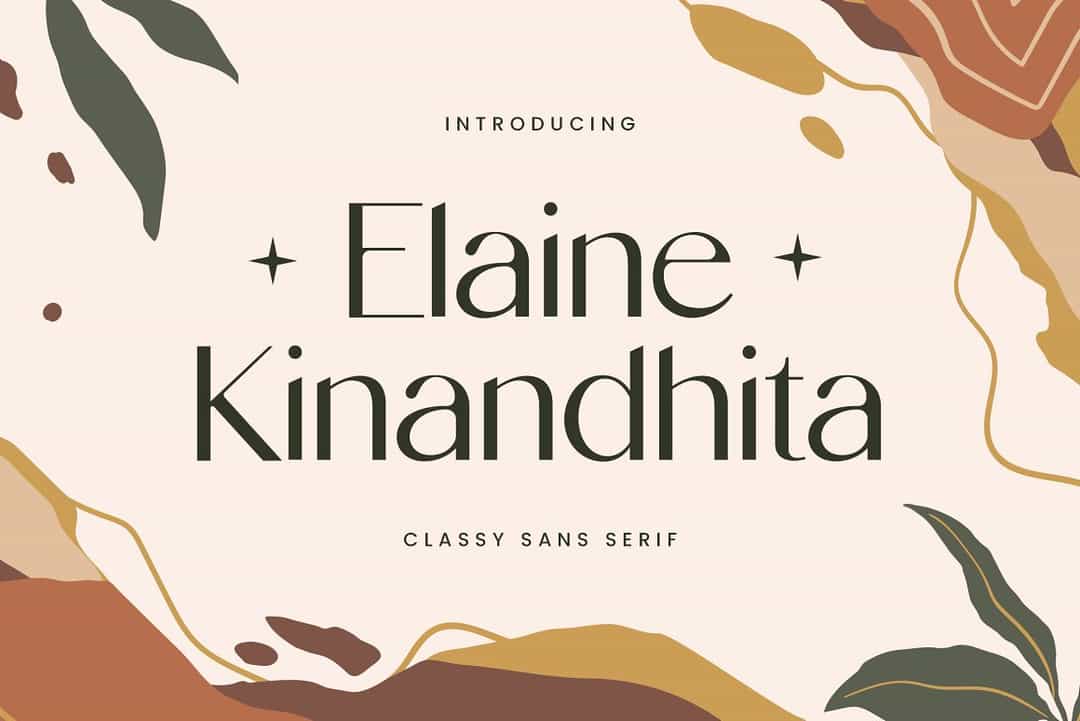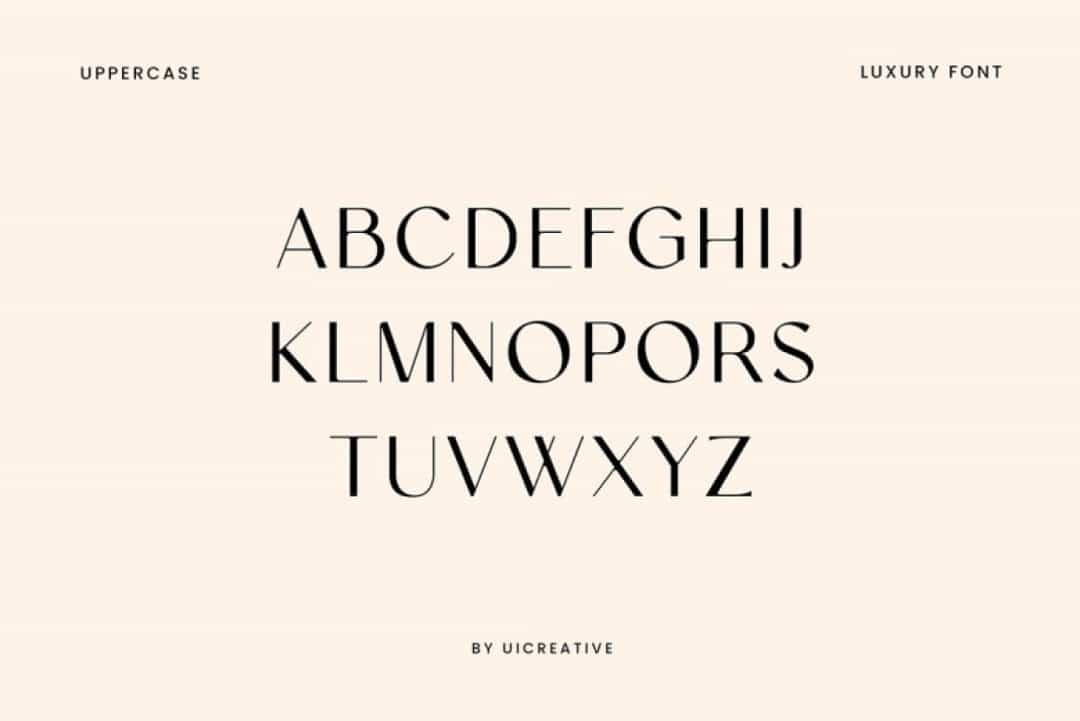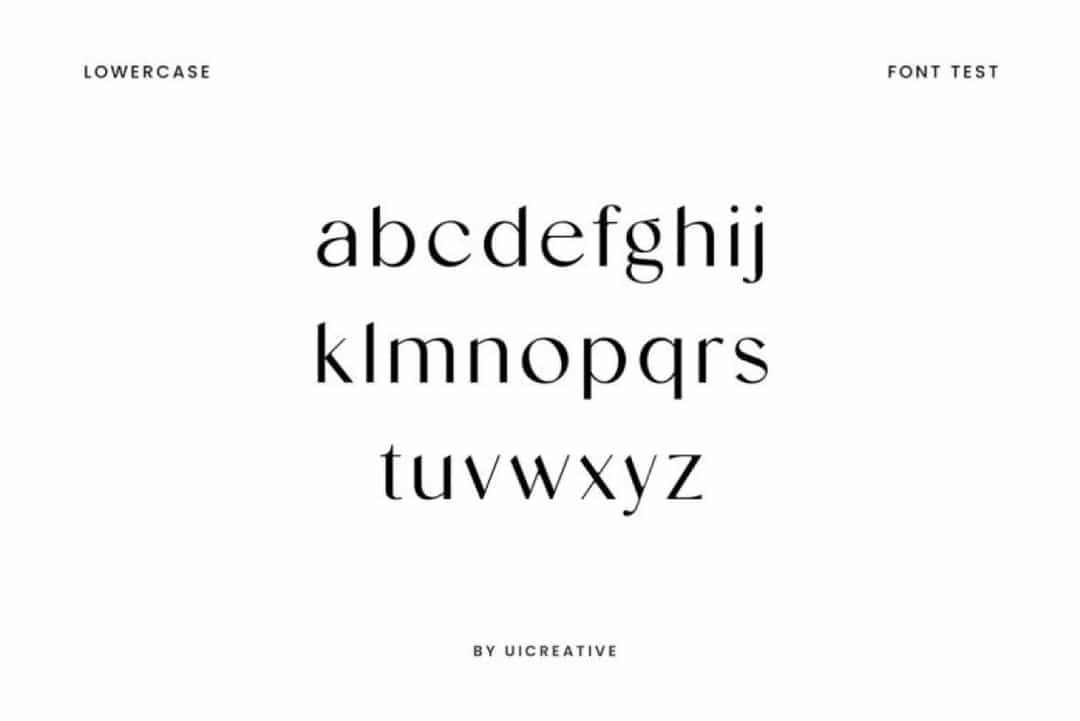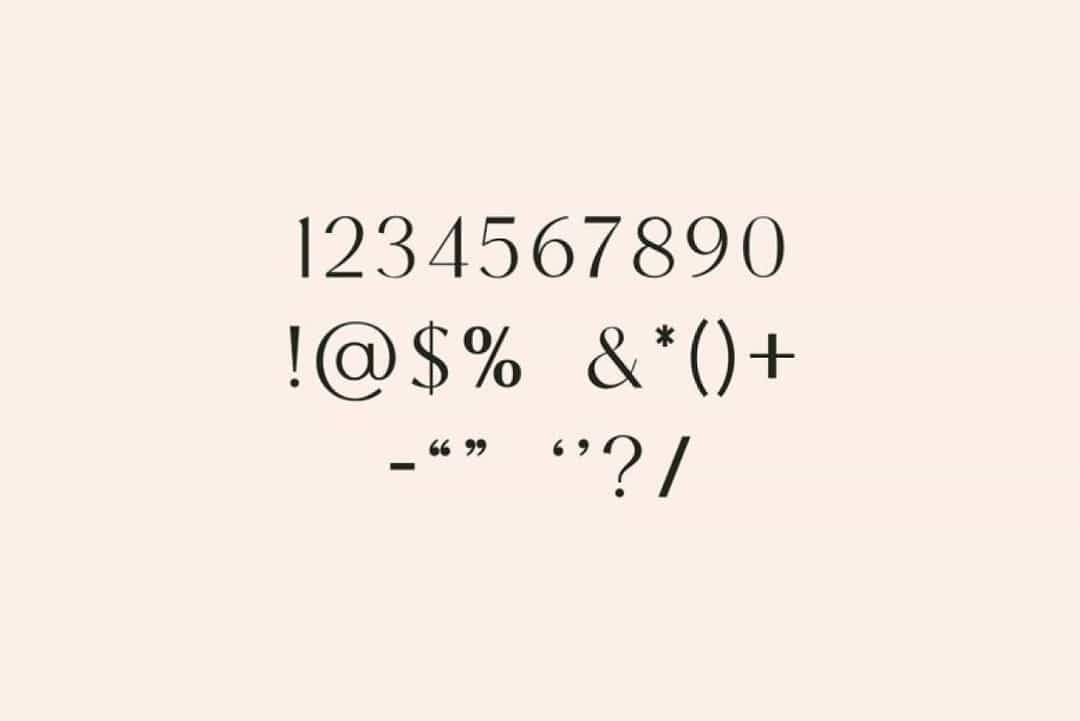
Elaine Kinandhita is an elegant sans-serif style that exudes class, modernism and elegance. Perfect for logos, signatures, stationery wedding invitations, typography quotes for book or magazine covers as well as headers on websites – Elaine Kinandhita font is ideal for many designs such as logos signatures stationery wedding invitations headers on websites clothing branding packaging designs as well as branding with both feminine and masculine characteristics.